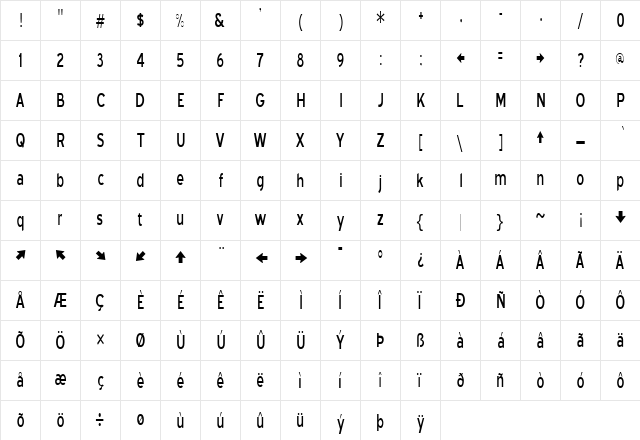
Blue Highway Condensed Regular
Design Context for Blue Highway Condensed Typeface
Blue Highway Condensed takes a measured approach to typography — its balanced proportions and neutral character make it a reliable workhorse for both digital and print work. Its narrow stance lets it pack a punch even in space-constrained designs.